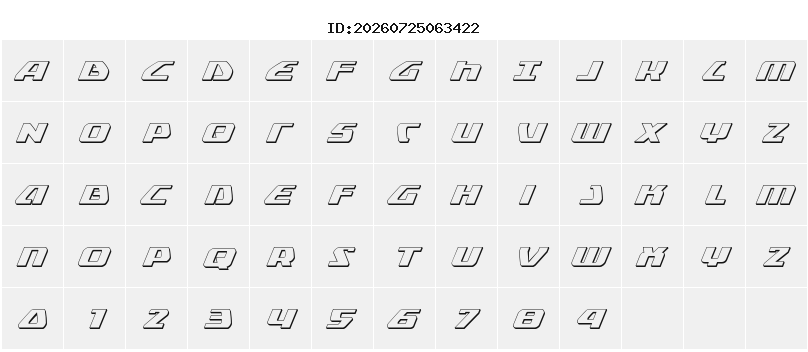
Global Dynamics 3D Italic Preview
• Font Name: Global Dynamics 3D Italic
• Full Font Name: Global Dynamics 3D Italic
About Global Dynamics 3D Italic.ttf
Global Dynamics 3D Italic.ttf is a modern, elegant sans-serif font designed for ultimate readability and visual harmony. Perfect for branding, headlines, web design, and print materials.